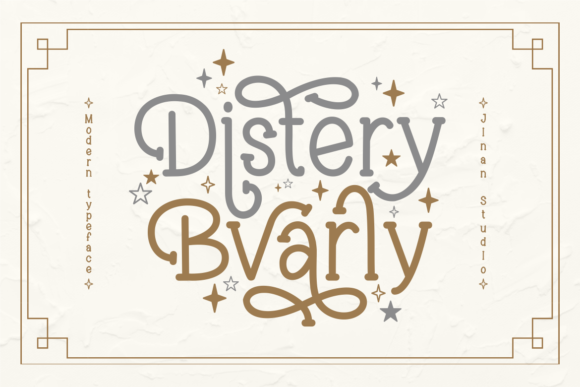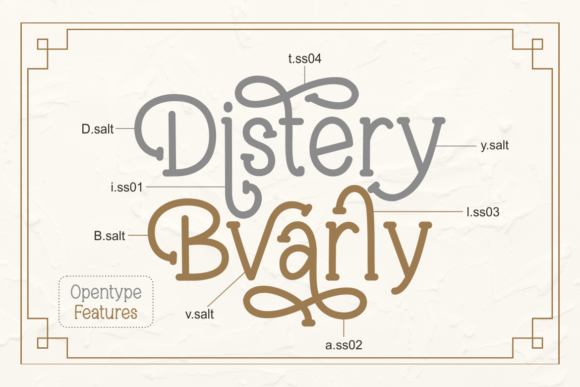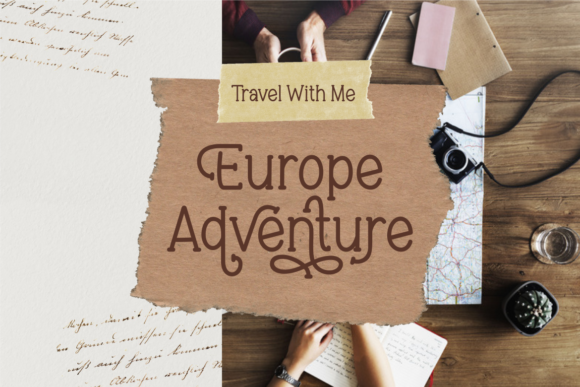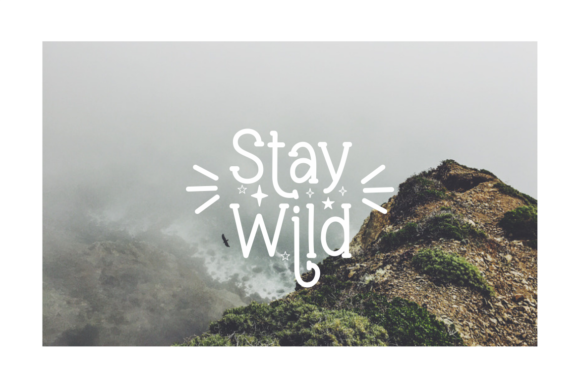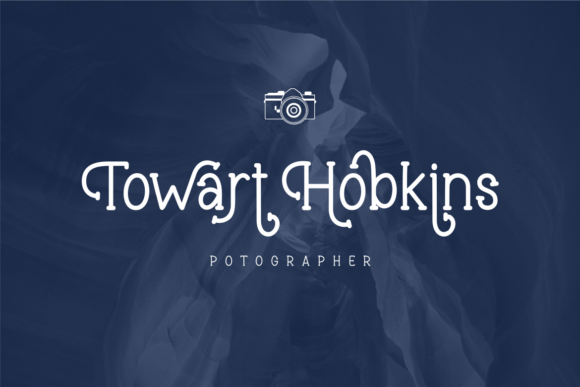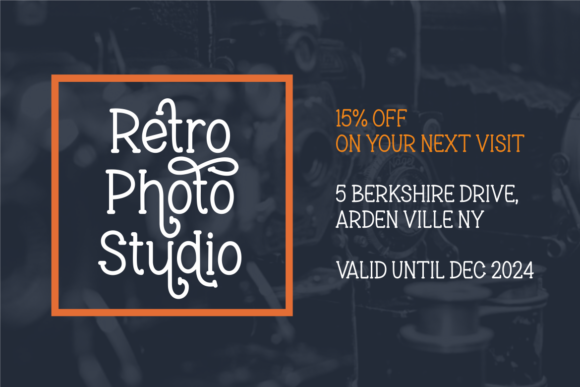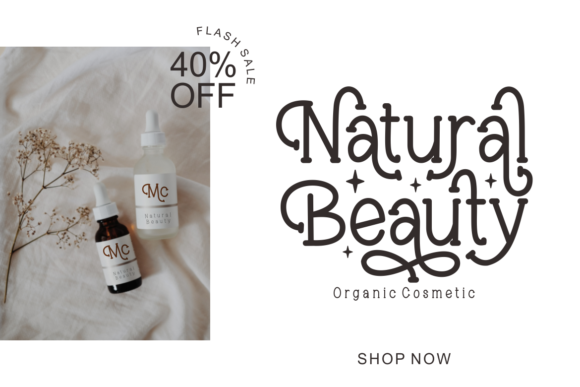
Have you ever stared at a blank page, trying to find the perfect font to bring your design to life? We’ve all been there. But what if we told you that the solution is just a click away? Introducing the Distery Bvarly Font, a stylish and modern slab serif font that’s sure to add a touch of happiness to your creations.
Distery Bvarly Font is designed to be versatile, suitable for a wide range of applications, from greeting cards to branding and packaging. With its PUA encoding, you’ll have access to all the amazing glyphs and ligatures, making it easy to add a personal touch to your designs. Whether you’re a seasoned designer or just starting out, this font is a valuable addition to your toolkit.
Distery Bvarly Font Key Features
- Font Family: Distery Bvarly
- Unique Characteristics: Distery Bvarly features a unique blend of modern and vintage elements, with intricate details and ornate flourishes, making it suitable for high-end design projects and luxury branding.
- Language Support: Supports Latin, Cyrillic, and Greek alphabets, with over 200 glyphs and ligatures
Designer Review: Distery Bvarly Font
I’ve had the chance to work with Distery Bvarly Font, and I must say it’s an interesting addition to any design project. Here are my thoughts on what works well and what doesn’t.
- Unique aesthetic**: Distery Bvarly Font has a distinctive look that’s perfect for projects that need a bit of an edge.
- High-quality rendering**: The font is well-made, with smooth lines and crisp typography.
- Good legibility**: Despite its unique style, Distery Bvarly Font is still easy to read, even at smaller font sizes.
- Limited character set**: Distery Bvarly Font has a relatively small character set, which may limit its use in certain projects.
- Not ideal for body text**: While it’s great for headings and titles, Distery Bvarly Font may not be the best choice for large blocks of body text.
Overall, I think Distery Bvarly Font is a solid addition to any designer’s toolkit. While it may have some limitations, its unique aesthetic and high-quality rendering make it a great choice for the right project.
Use the Distery Bvarly font for creative projects that require a unique and eye-catching font. Experiment with different font sizes, colors, and combinations to achieve the desired effect.
The Distery Bvarly font is suitable for:
- Designing flyers and brochures.
- Creating social media graphics.
Unleashing Creativity with Distery Bvarly Font
Create a captivating travel poster using the Distery Bvarly Font. This project will transport you to a world of nostalgia and adventure.
- Use the Distery Bvarly Font for the title and headings to add a touch of vintage charm.